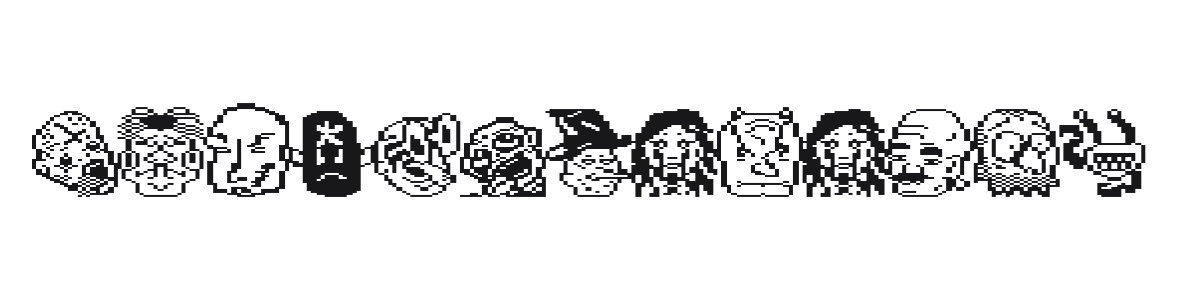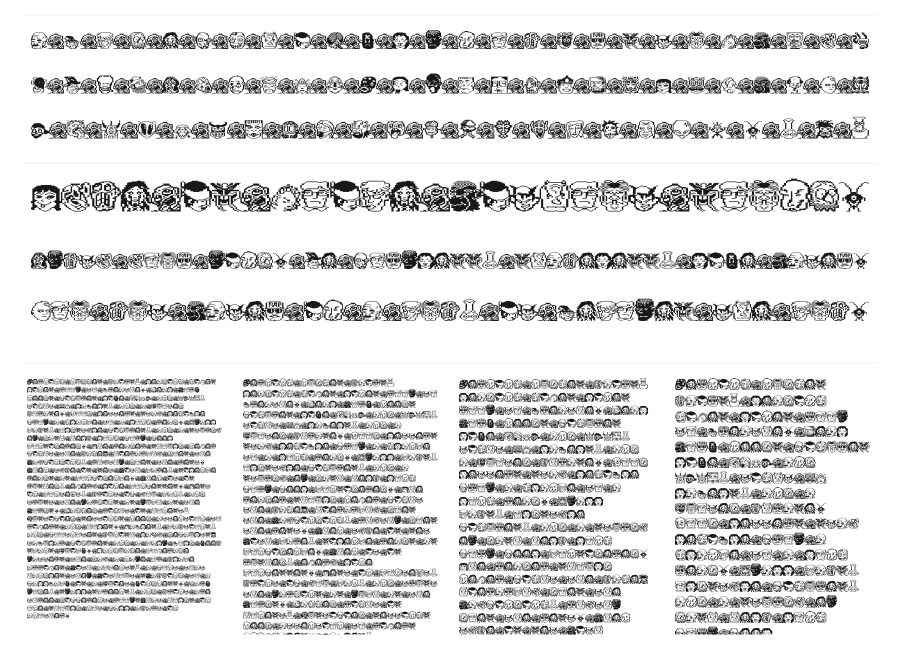
Funky Beheadz
Funky Beheadz is a dingbat font made up of pixelated character heads, each one a tiny portrait with its own attitude. The coarse 8-bit rendering gives every face a retro arcade quality that sits comfortably in street, gaming, and comic contexts. No text, just heads.